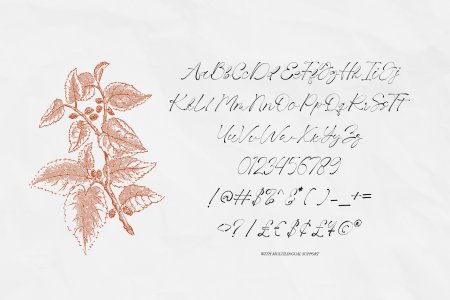
AERPTHINE - Aesthetic Script Font
AERPTHINE is a handmade calligraphy and aesthetic handwritten script font that is made with a touch of love in every character. This font is perfect for logos, branding, business cards, watermarks, posters, wedding invitation, logo design, branding, social media design, book, magazine, etc. This font is both modern and nostalgic. For those of you who are needing a touch of elegant, stylish, classy, chic and modernity for your designs, this font was created for you. Yes, you!
• Contains 355 Glyphs
• Uppercase, Numbers, Punctuation, and Symbols
• 9 Ligatures
• Multilingual Support. Support for 87 languages. Afrikaans, Albanian, Asu, Basque, Bemba, Bena, Breton, Catalan, Chiga, Colognian, Cornish, Croatian, Czech, Danish, Dutch, Embu, English, Esperanto, Estonian, Filipino, Finnish, French, Friulian, Galician, German, Gusii, Hungarian, Indonesian, Irish, Italian, Kabuverdianu, Kalenjin, Kamba, Kikuyu, Kinyarwanda, Latvian, Lithuanian, Lower Sorbian, Luo, Luxembourgish, Luyia, Machame, Makhuwa-Meetto, Makonde, Malagasy, Maltese, Manx, Meru, Morisyen, North Ndebele, Norwegian, Bokmål, Norwegian Nynorsk, Nyankole, Oromo, Polish, Portuguese, Quechua, Romansh, Rombo, Rundi, Rwa, Samburu, Sango, Sangu, Scottish Gaelic, Sena, Serbian, Shambala, Shona, Slovak, Soga, Somali, Spanish, Swahili, Swedish, Swiss, German, Taita, Teso, Turkish, Upper Sorbian, Uzbek (Latin), Volapük, Vunjo, Walser, Welsh, Western, Frisian, Zulu.